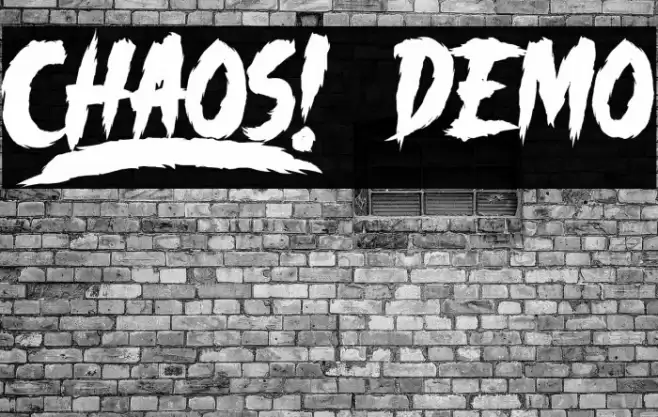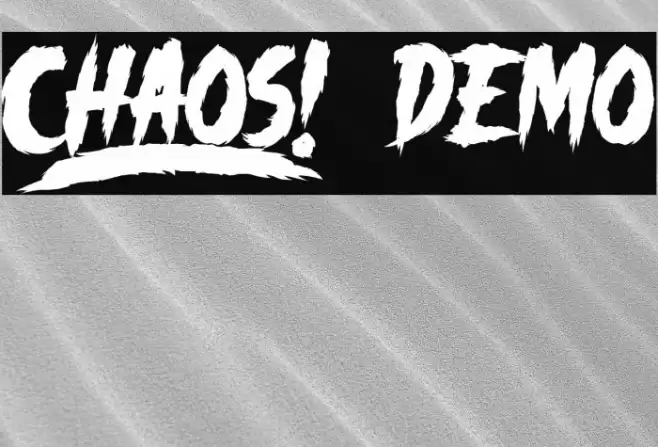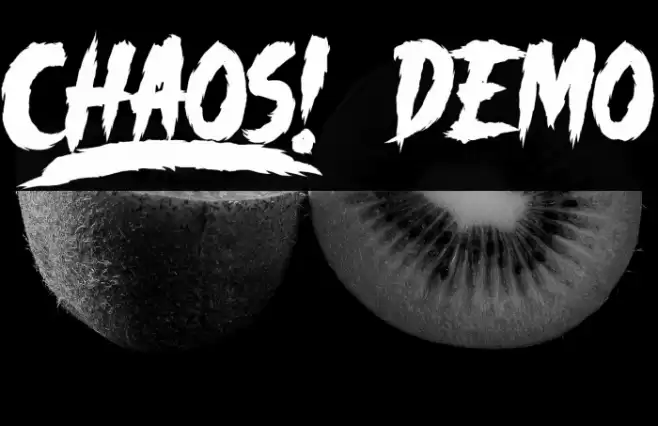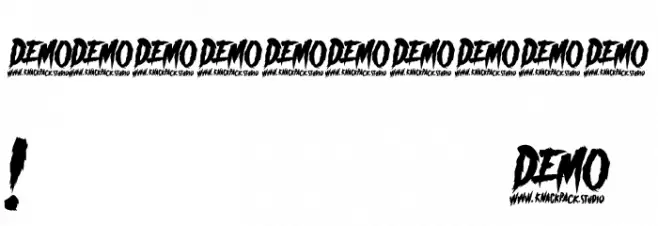
_CHAOS! DEMO Font
_CHAOS! DEMO Description
This font features a bold and aggressive style, characterized by jagged, sharp edges and a dynamic, energetic appearance. The letters are designed with a sense of movement, almost as if they are being torn or slashed, which gives them a chaotic and intense feel. The uppercase and lowercase letters maintain a consistent style, with a slightly condensed form that enhances their boldness. The font's unique design makes it stand out, making it suitable for projects that require a strong visual impact. The spacing between characters is relatively tight, which adds to the compact and forceful look of the text. The font's high contrast in stroke thickness further emphasizes its dramatic and eye-catching nature.
A bold, jagged font with a chaotic and energetic style from Uncategorized fonts.
- Proposed Projects: Ideal for horror movie posters, edgy branding, extreme sports logos, and music album covers.
- Character Spacing: Tight